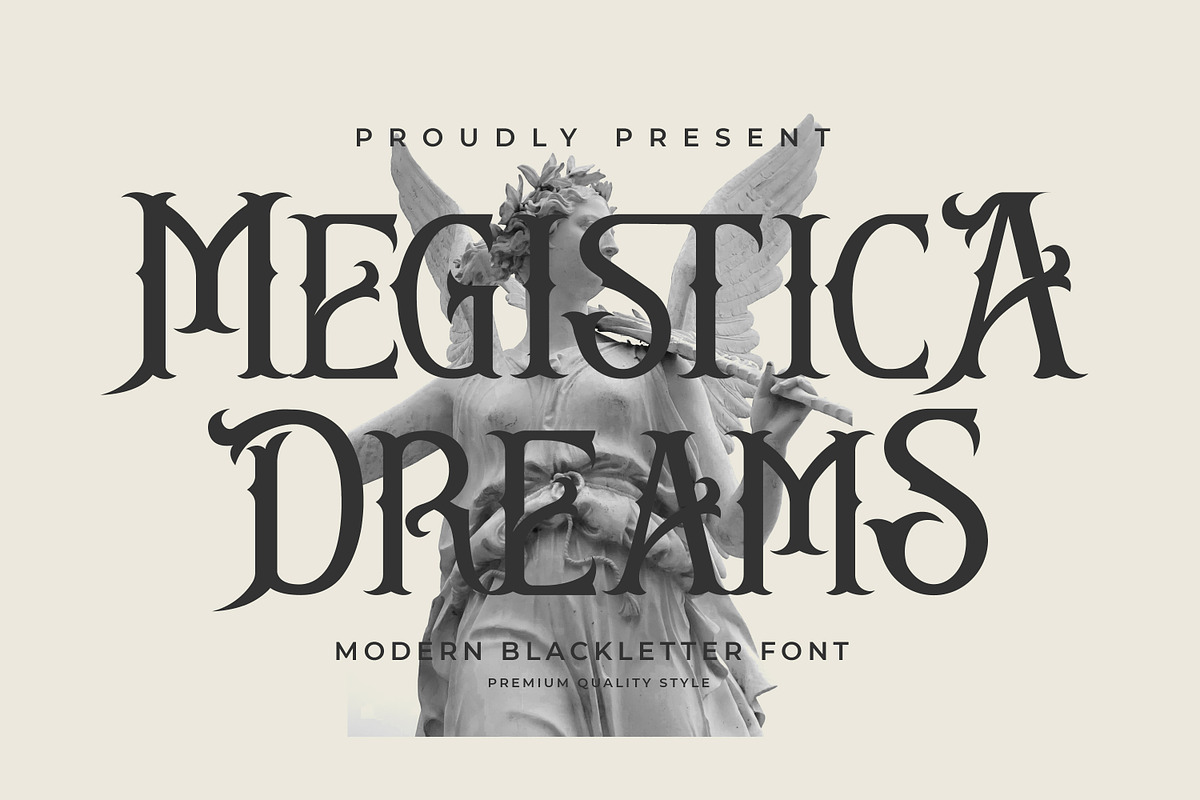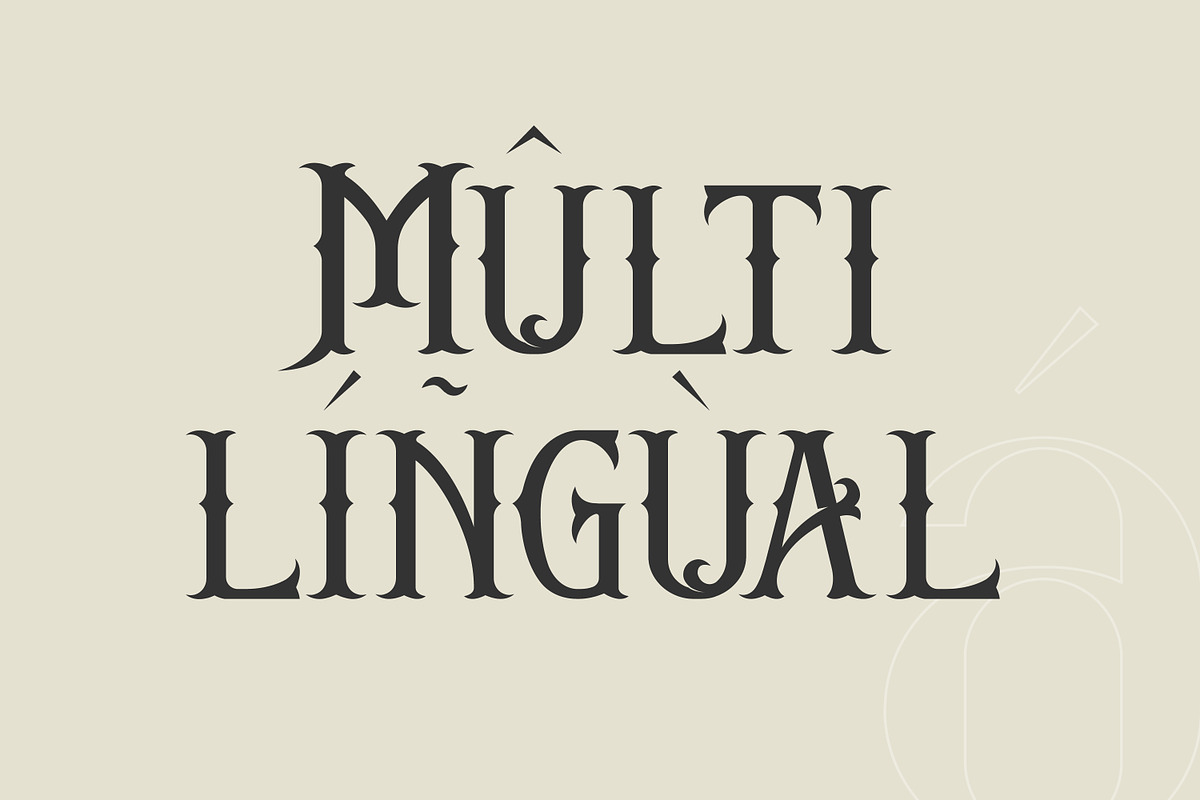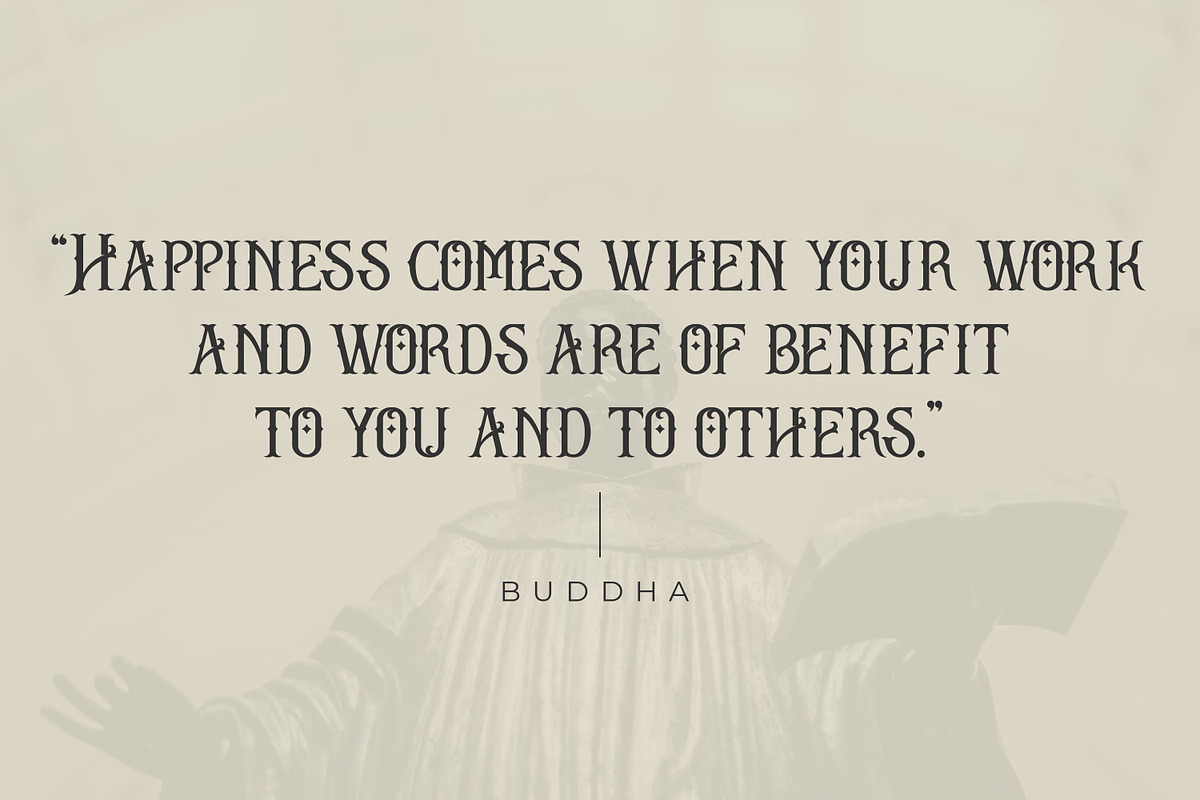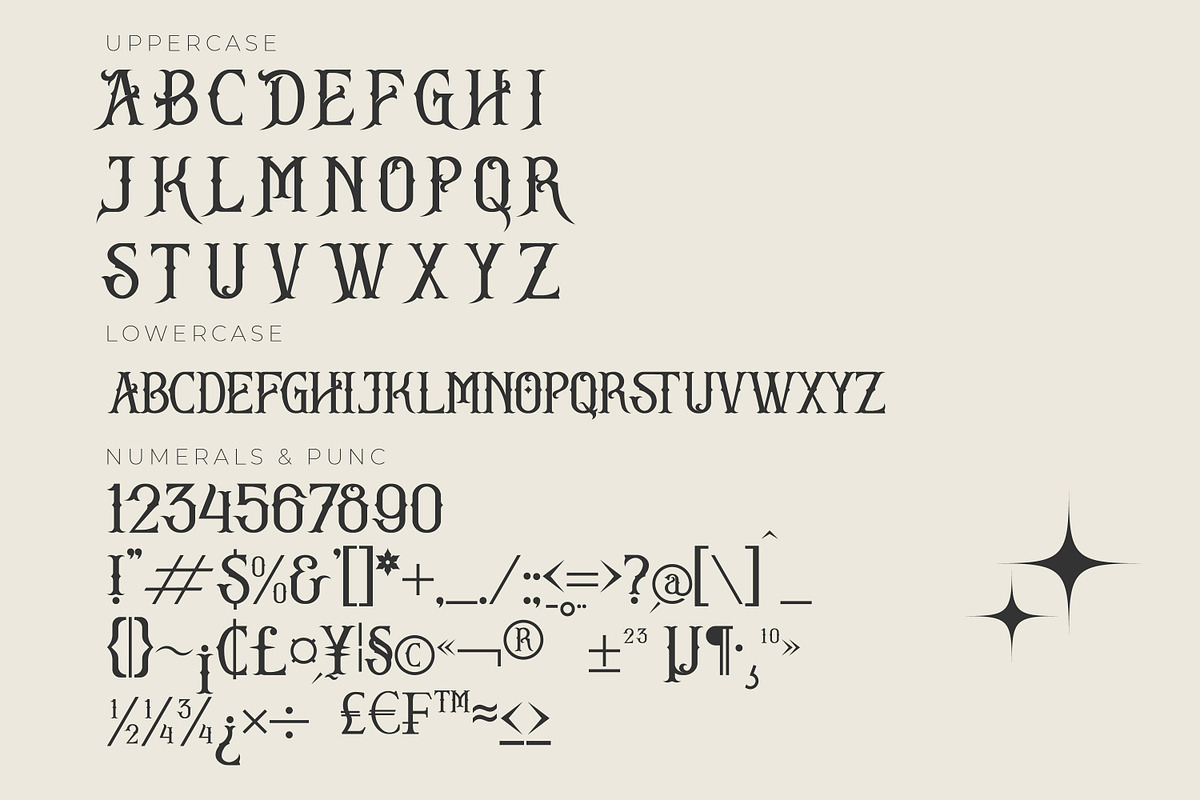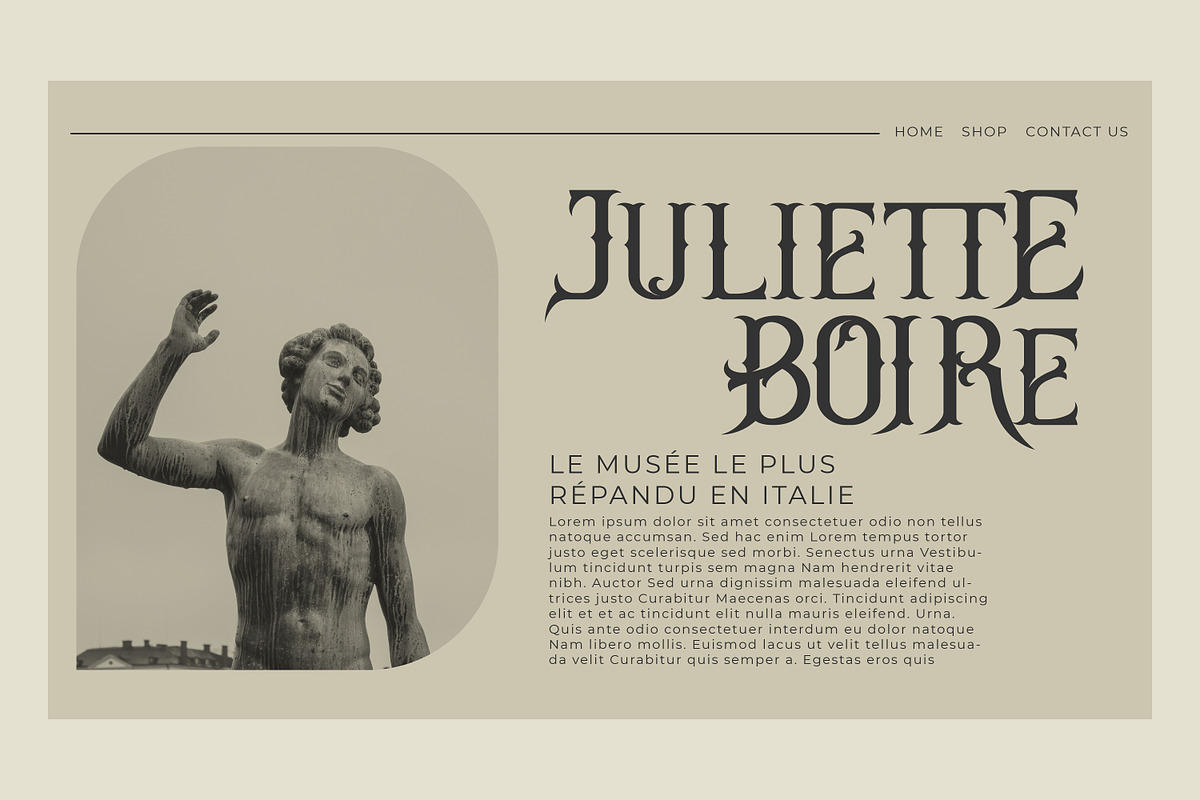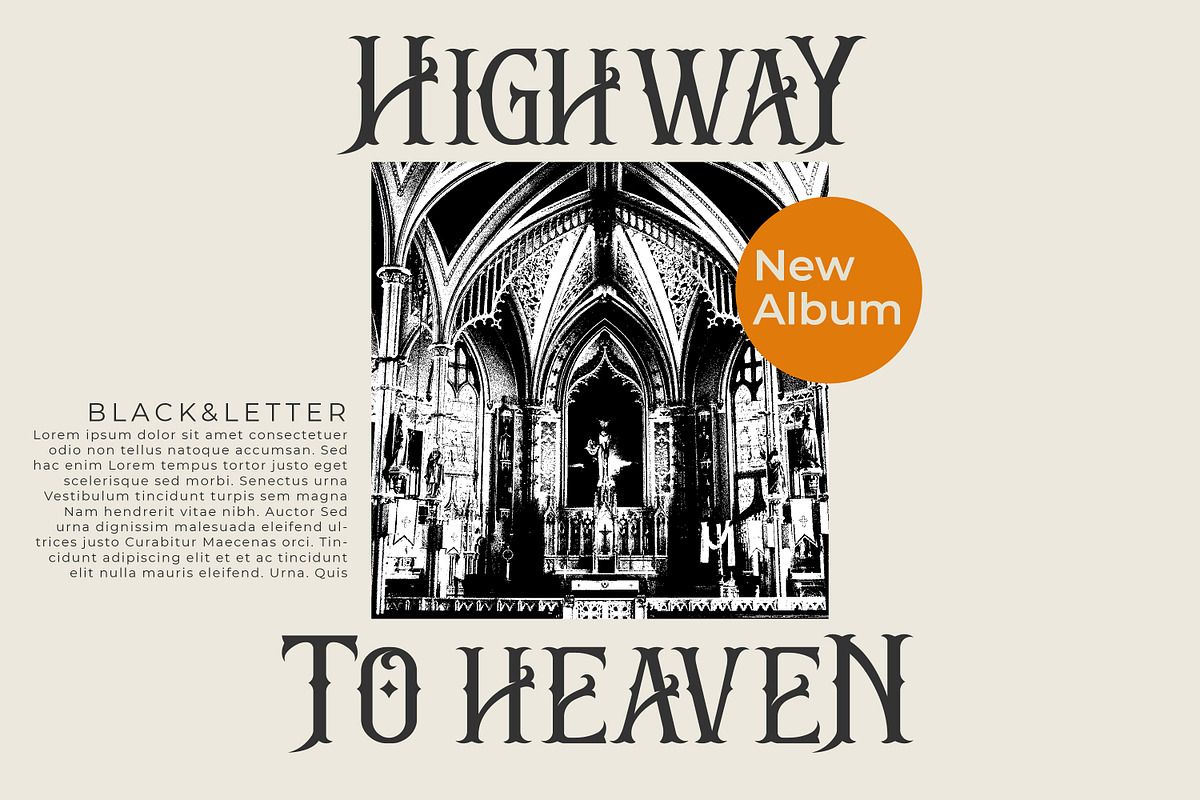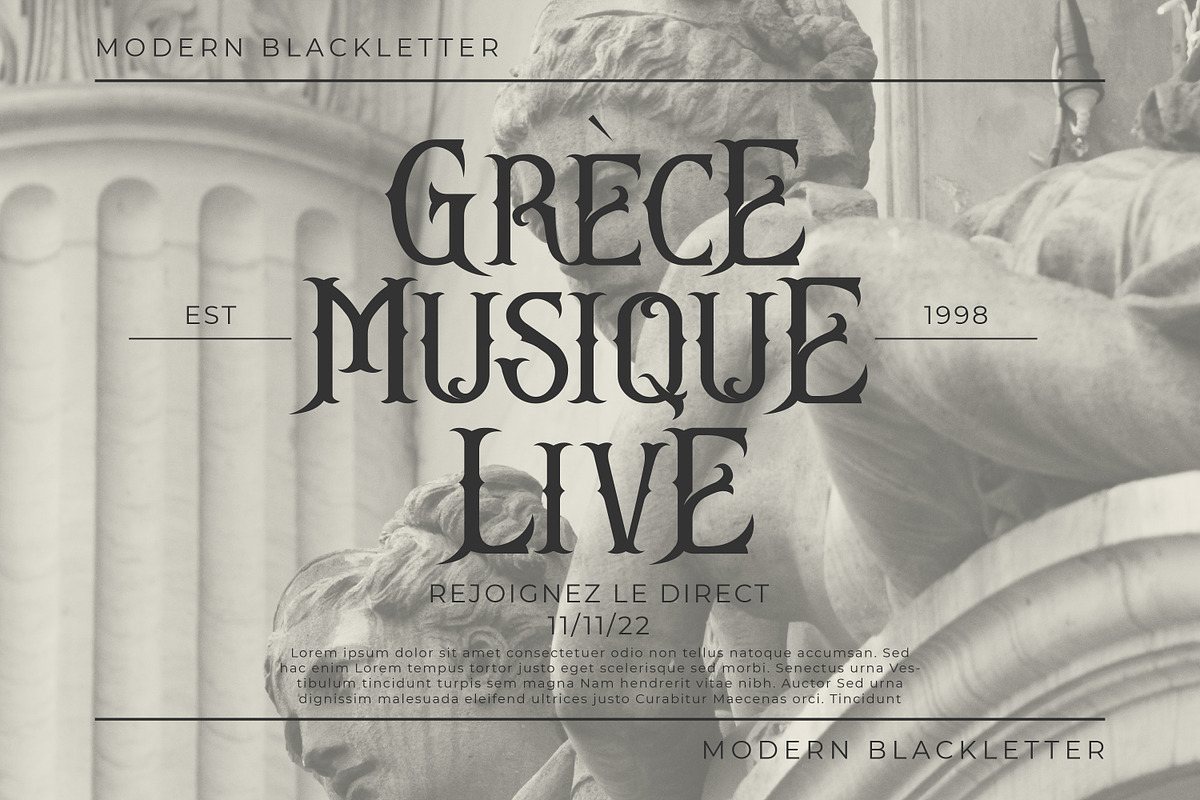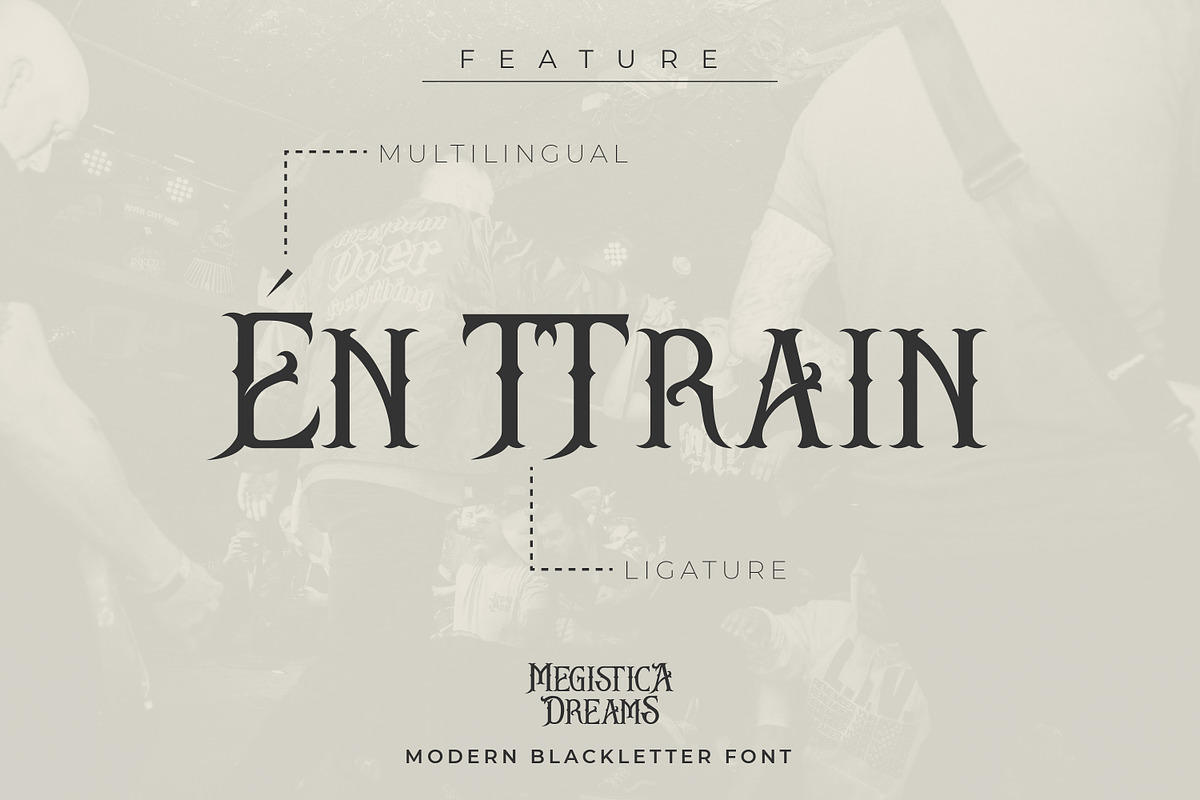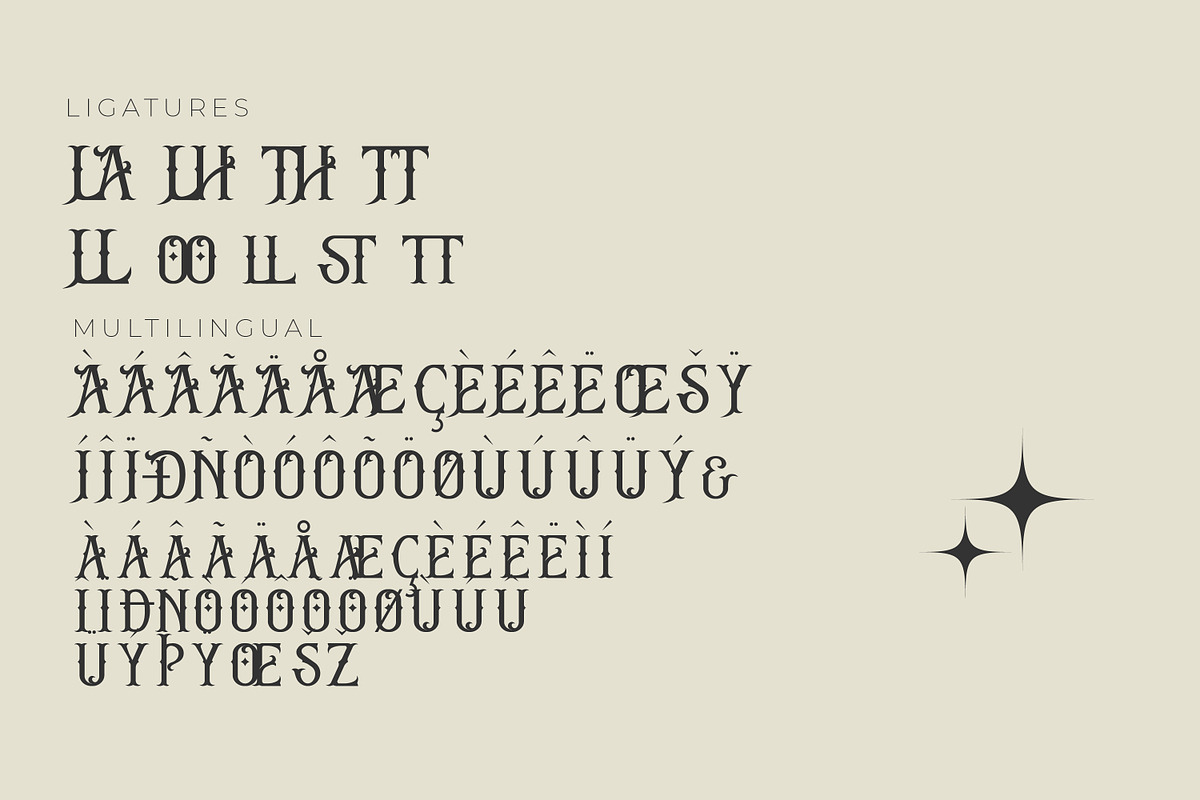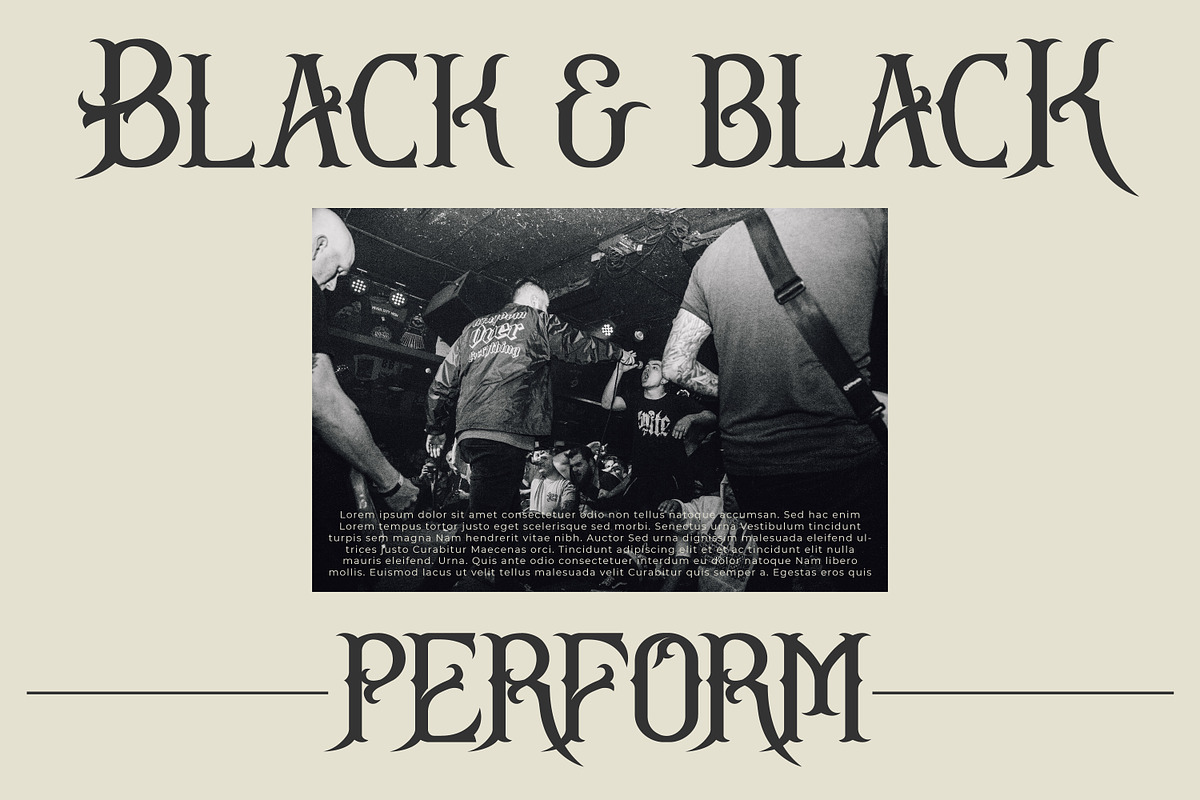
Megistica Dreams Modern Blackletter
Proudly present Megistica Dreams Typeface, created by Storytype, A serif modern blackletter typeface that has own unique style & modern look. This typeface is perfect for an elegant & luxury logo, book or movie title design, fashion brand, magazine, clothes, lettering, quotes, and so much more.